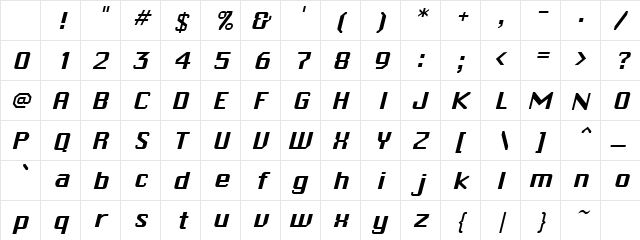
Laudanum is a composed and adaptable typeface that performs quietly and consistently across a wide range of design contexts. The slanted form adds forward momentum and visual energy.